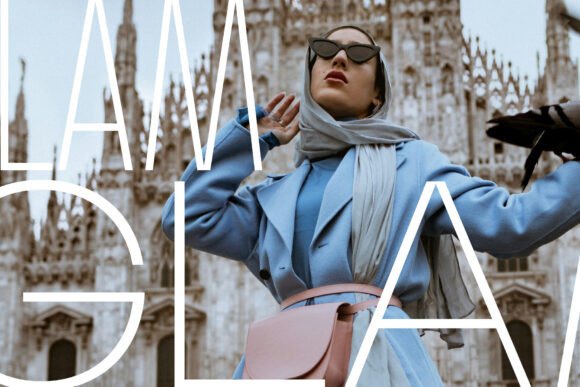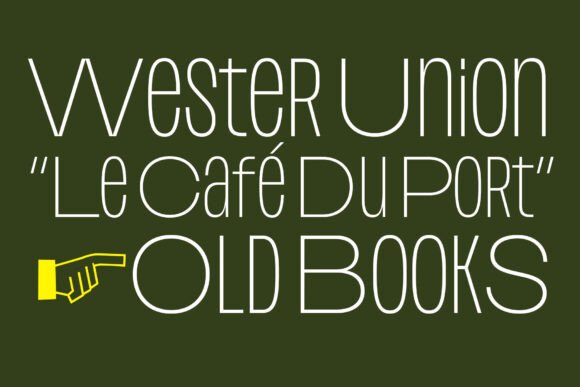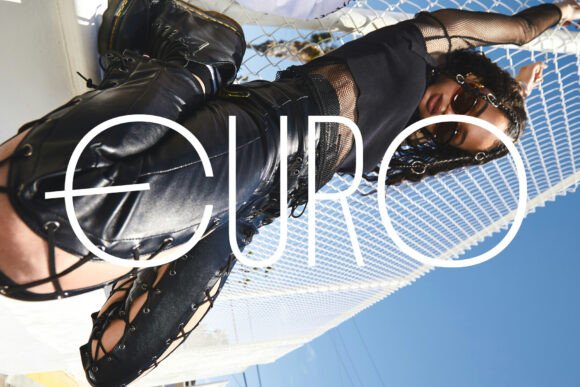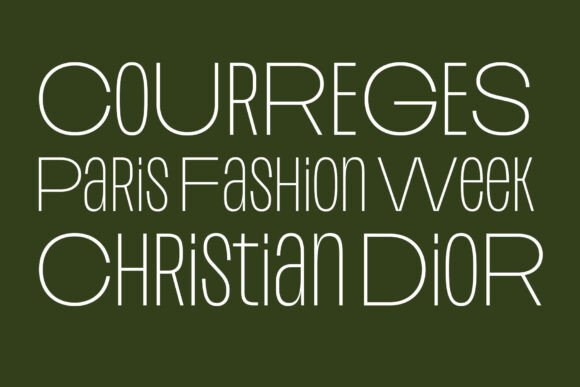
Introduction to Plex Beta Light Font
Imagine you’re brainstorming ideas for your latest creative project, and you need a font that perfectly captures the essence of your concept. You search for hours, scrolling through design resources, and finally, you stumble upon the perfect font – the Plex Beta Light Font. Its sleek, modern vibe is exactly what you’ve been looking for to elevate your design to the next level.
As a designer, you know how crucial it is to have access to high-quality fonts that can make your project stand out. The Plex Beta Light Font is a valuable resource that offers a contemporary style with just enough weight to make an impact. With its clean curves and crisp structure, this font is ideal for branding, web headlines, editorial titles, or app interfaces where subtlety and clarity are key.
Plex Beta Light Font
- Plex Beta Light Font is a modern and clean sans-serif font, ideal for use in logos, branding, and digital products, as well as print materials.
- Its unique characteristics make it a versatile design resource, suitable for various creative projects, from advertising and marketing to editorial and publishing.
Honest Review: Plex Beta Light Font
As a designer, I’m always on the lookout for high-quality design resources that won’t break the bank. That’s why I was excited to try out the Plex Beta Light Font. In this review, I’ll share my honest thoughts on what works well, what could be improved, and whether this font is worth adding to your design arsenal.
- ✨ Clean and minimalist design: The Plex Beta Light Font has a clean, modern aesthetic that makes it perfect for creative projects.
- ✨ High-quality glyphs: The font includes a wide range of glyphs, including Latin and Cyrillic characters, making it suitable for a variety of languages.
- ⚠️ Limited font weights: The Plex Beta Light Font only comes in a few font weights, which may limit its versatility in certain design projects.
- ⚠️ Not suitable for complex designs: While the font is great for simple designs, it may not be the best choice for complex, multi-element designs.
Overall, I’m impressed with the Plex Beta Light Font. While it may have some limitations, its clean design, high-quality glyphs, and free download make it a great addition to any designer’s toolkit. Whether you’re working on a creative project or need a reliable design resource, the Plex Beta Light Font is definitely worth checking out.
Plex Beta Light Font
To get the most out of the Plex Beta Light Font, use it on a transparent background to create a modern and sleek design. Combine it with other high-quality design resources to elevate your creative project.
The Plex Beta Light Font is suitable for various design projects, including:
- Infographics and data visualizations
Alternatives to Plex Beta Light Font
Avenir Next
Avenir Next is a high-quality sans-serif font that is perfect for creative projects requiring a modern and clean design. It features a transparent background and is ideal for use in logos, headings, and body text. When to use: For modern and minimalist design projects where a clean and simple font is required.
Comparison to Plex Beta Light Font: Avenir Next is more geometric and has a more even spacing, giving it a more modern feel compared to the Plex Beta Light Font.
Montserrat is a free download sans-serif font that is great for creative projects requiring a high-quality, urban feel. It features a transparent background and is ideal for use in headings, body text, and logos. When to use: For urban and industrial design projects where a bold and modern font is required.